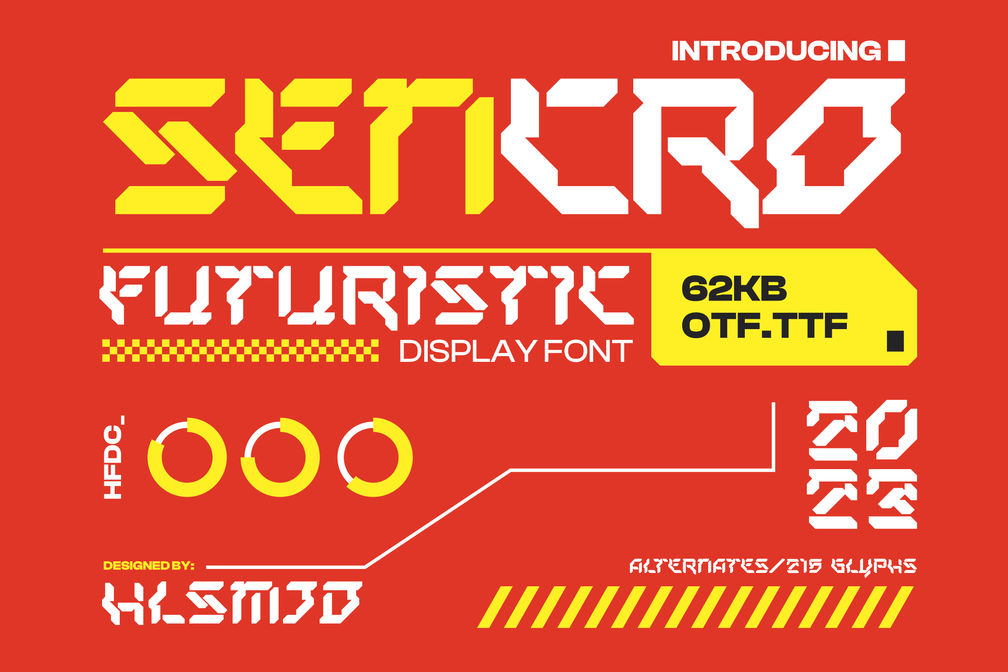
Sencro Typeface
The modern futuristic font is a unique font style that represents the modern era’s technological advancement and innovation. It features clean lines, geometric shapes, and a minimalist design that creates a sense of sophistication and elegance. The font is designed to be used in digital media, including websites, mobile apps, and social media posts. It can also be used in print media, such as brochures, flyers, and posters.
The modern futuristic font comes in a range of styles and weights, allowing designers to choose the best fit for their brand identity. Some of the most popular styles include sans-serif, condensed, and monospace fonts. The font’s characteristics include a minimalist design, geometric shapes, and clean lines that give it a futuristic and technological feel. It also features unique letterforms and symbols that make it stand out from other font styles.
The modern futuristic font is ideal for businesses that want to create a unique and innovative brand identity. It is suitable for companies in the technology, design, and creative industries that want to represent their values of innovation, creativity, and cutting-edge technology. It can also be used for branding campaigns, product packaging, and advertising campaigns.
In conclusion, the modern futuristic font is a unique font style that represents the modern era’s technological advancement and innovation. Its characteristics include a minimalist design, geometric shapes, and clean lines that give it a futuristic and technological feel. It is suitable for businesses that want to create a unique and innovative brand identity and is ideal for companies in the technology, design, and creative industries.
• All caps
• Numeral
• Punctuation
• Symbol
• Multilingual